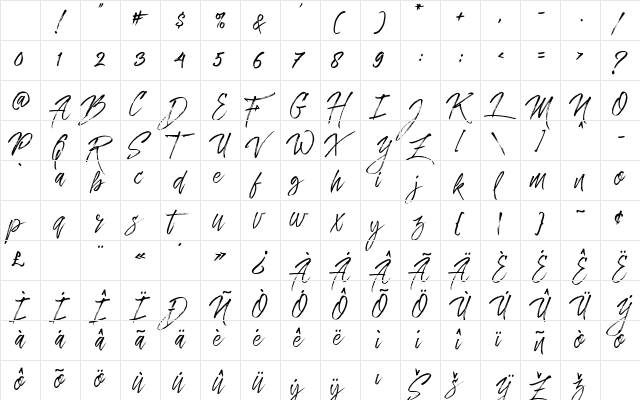
Dreamlight Typeface Free Demo is a composed and adaptable typeface that performs quietly and consistently across a wide range of design contexts. Its slender proportions lend an understated elegance to any composition.